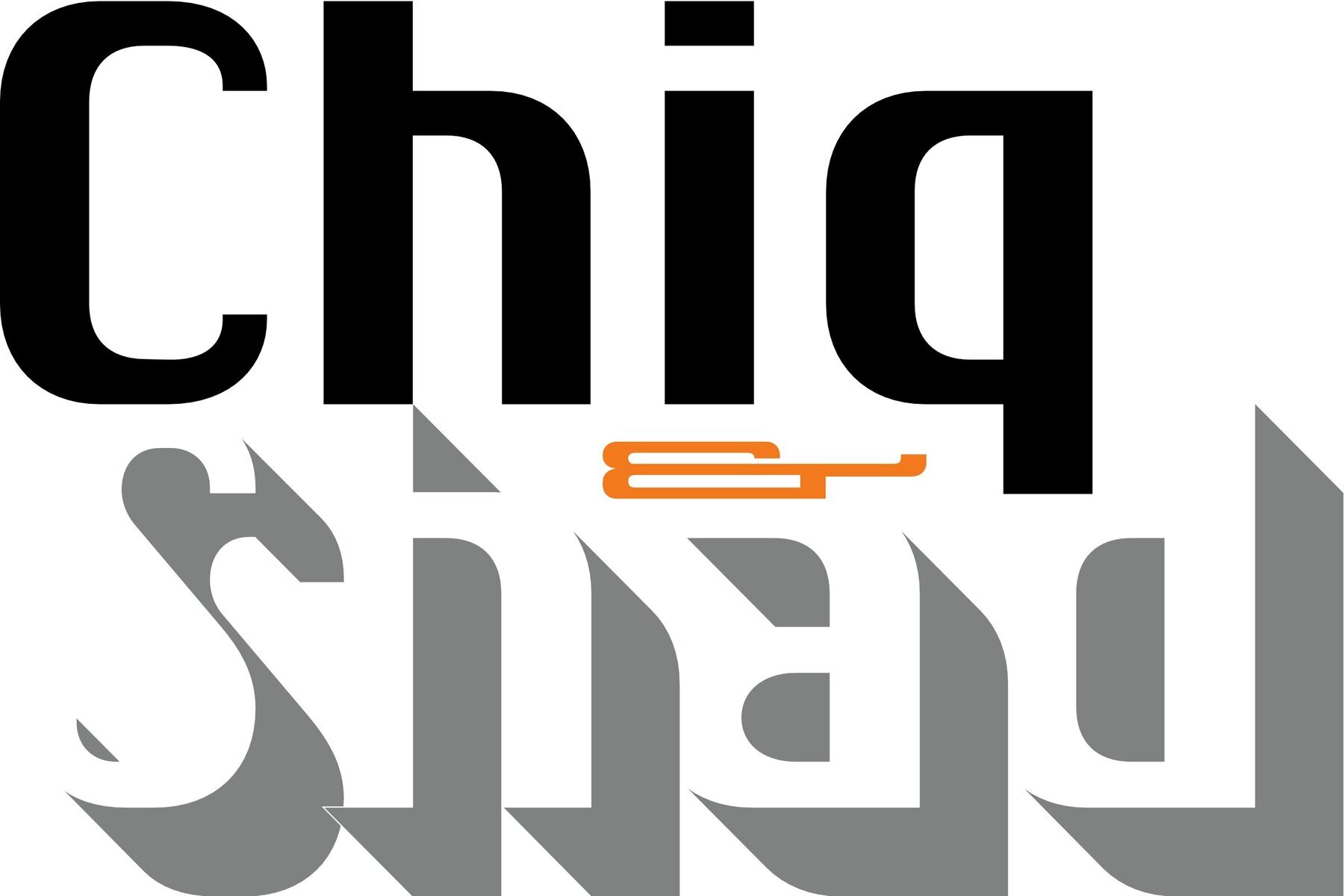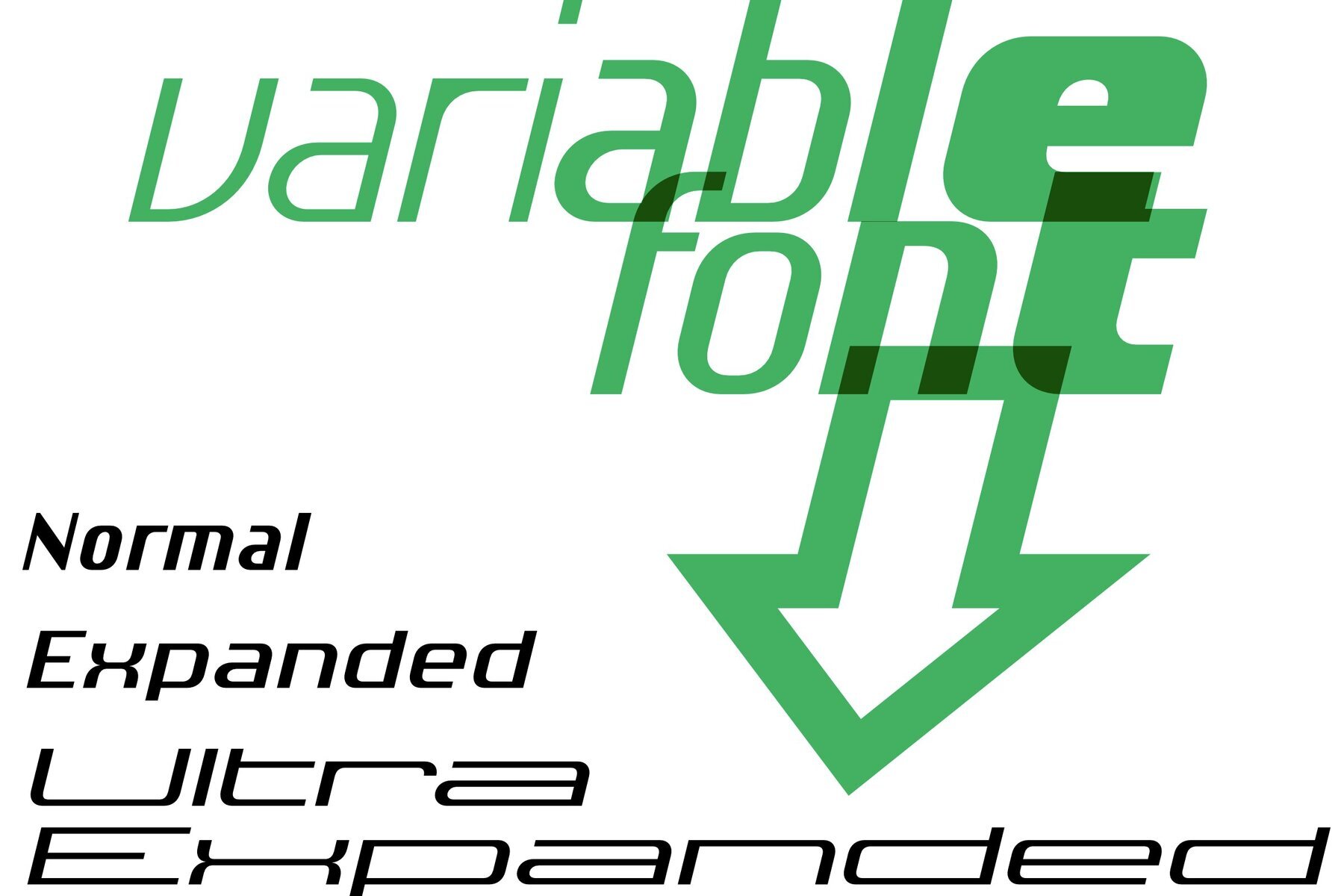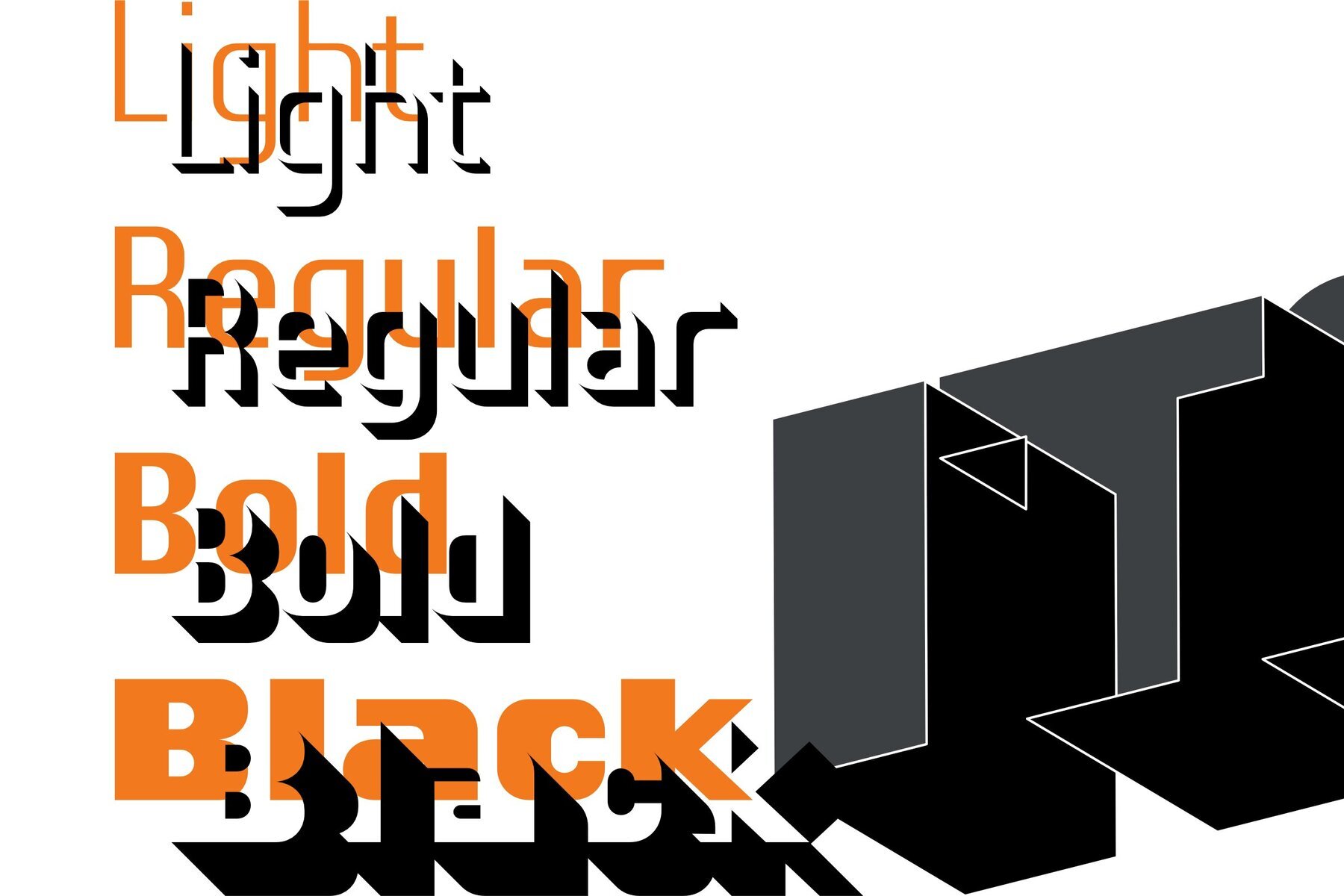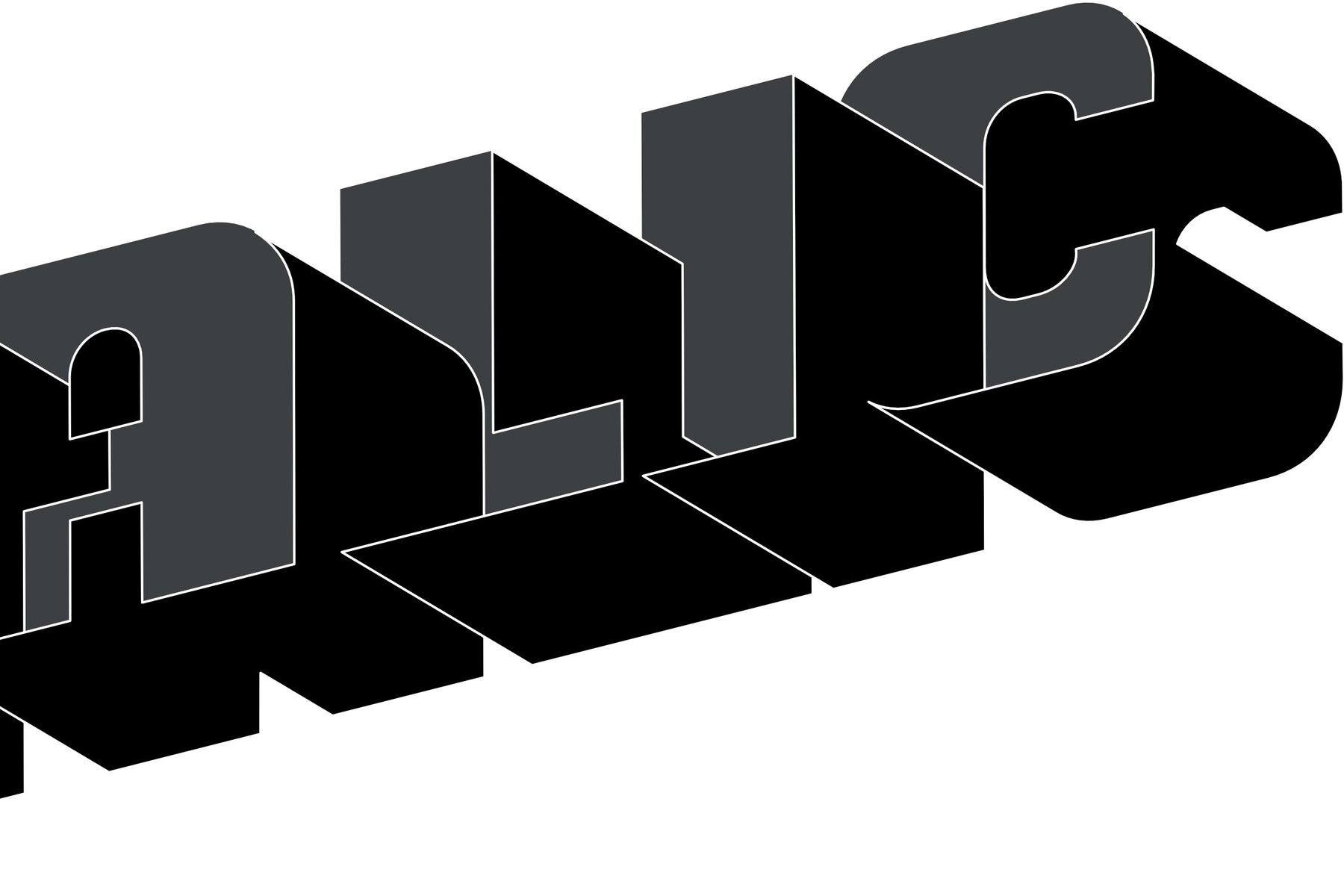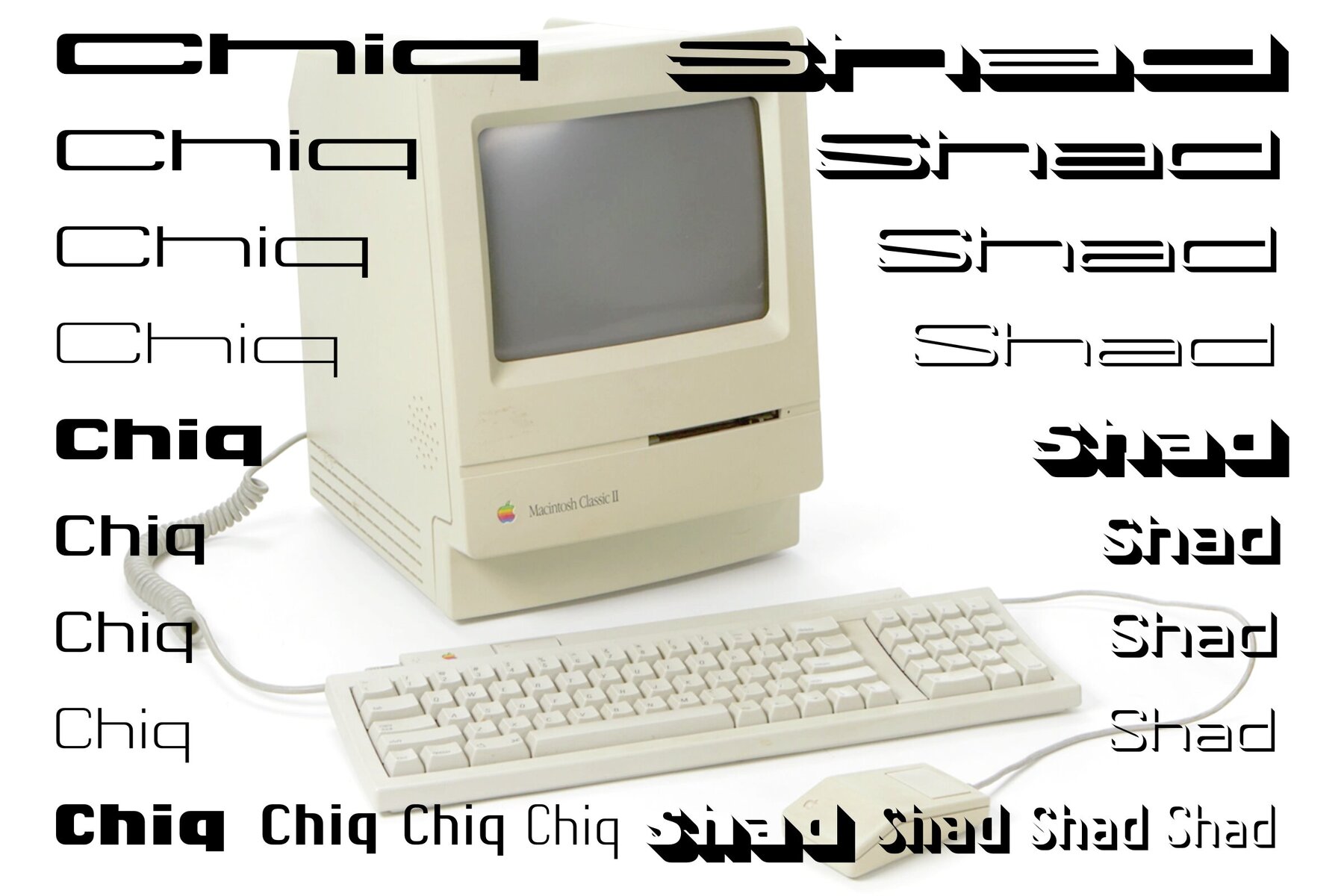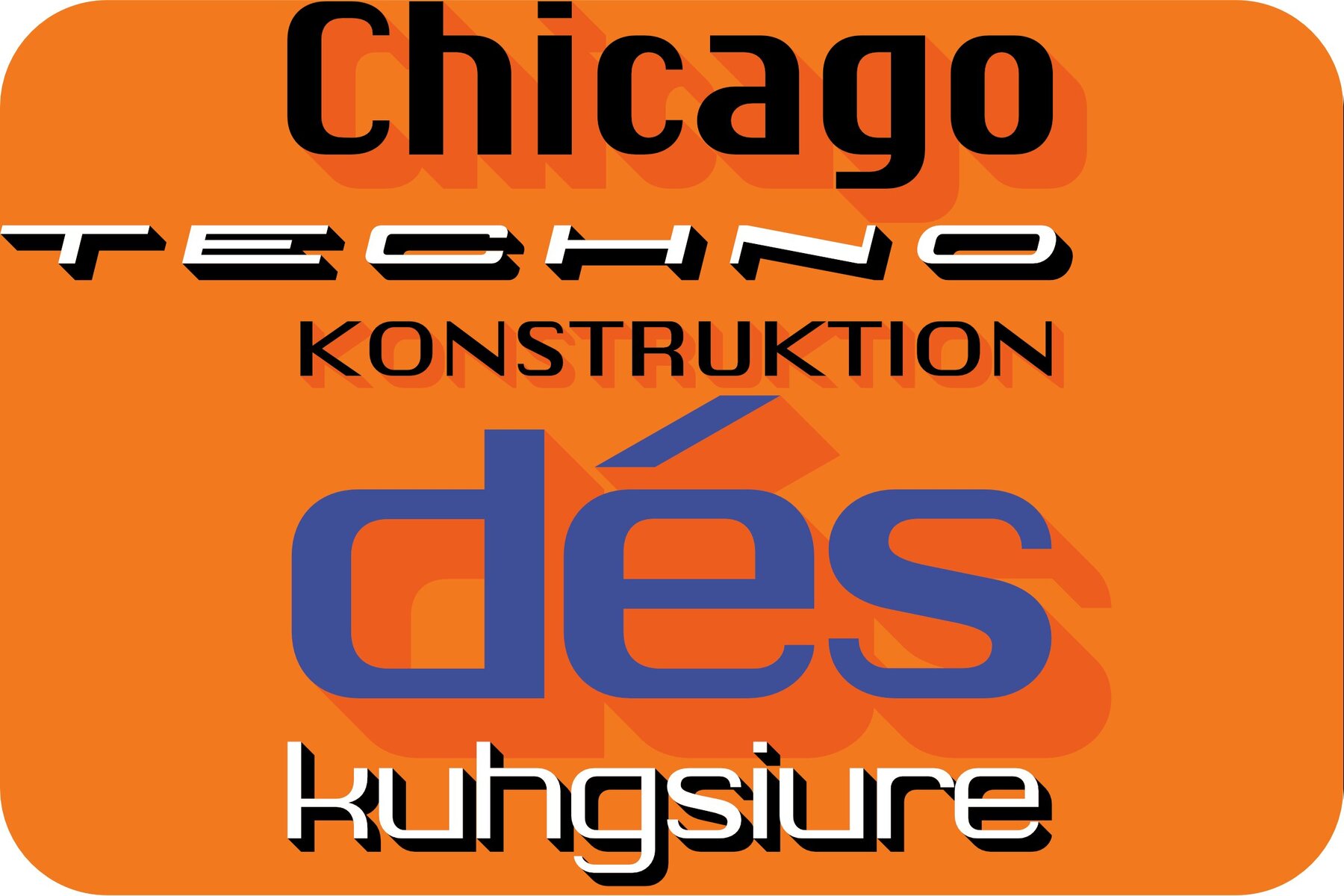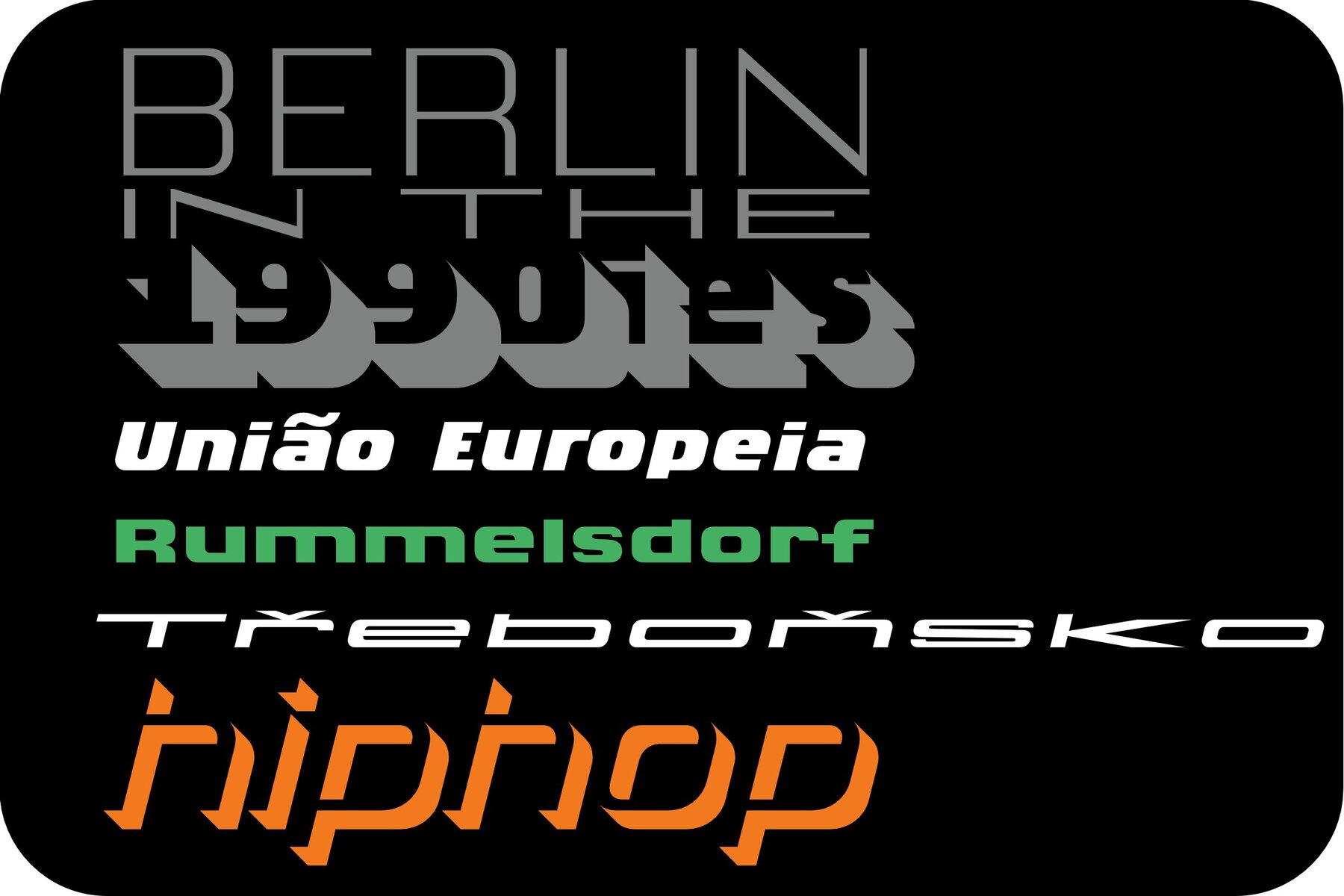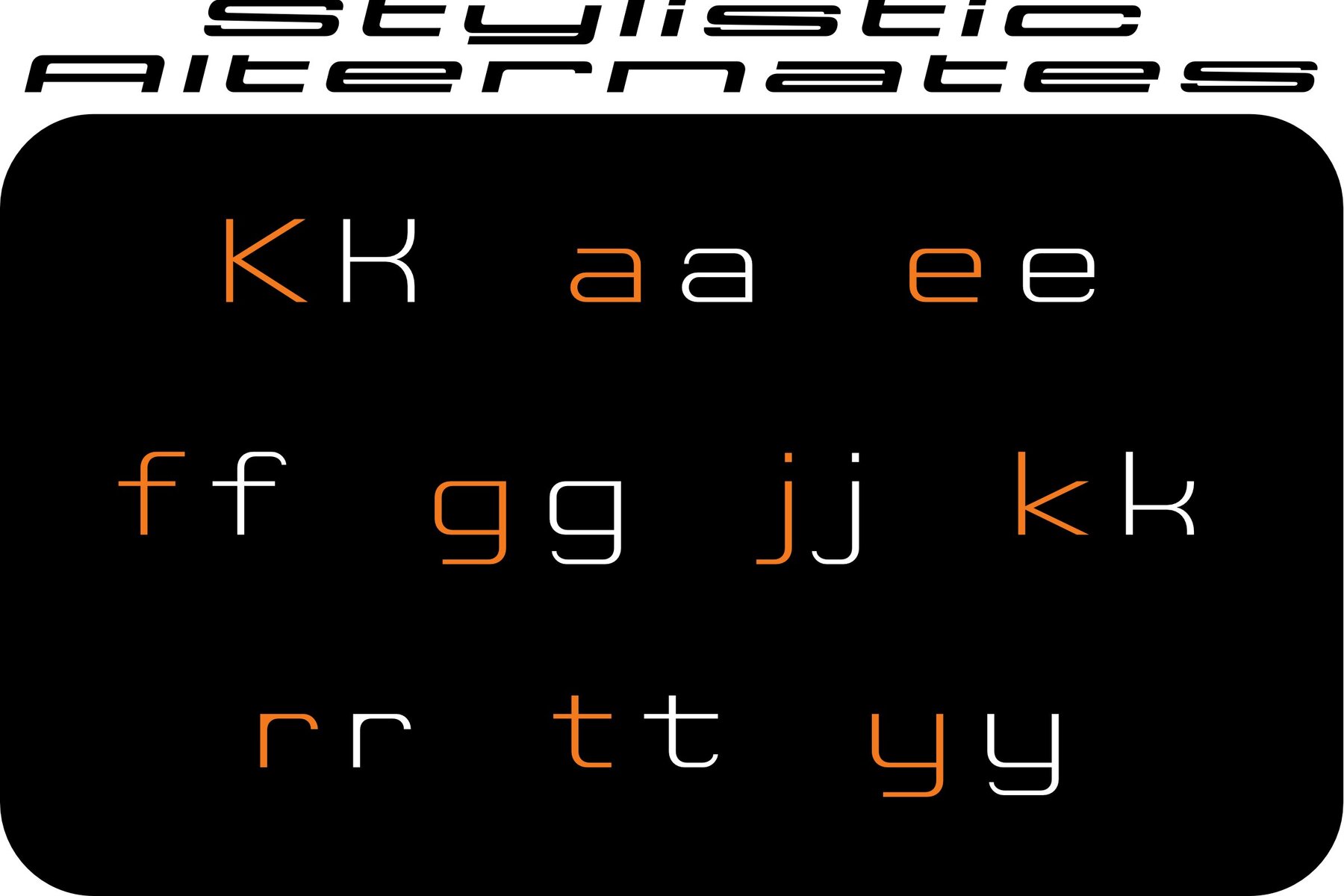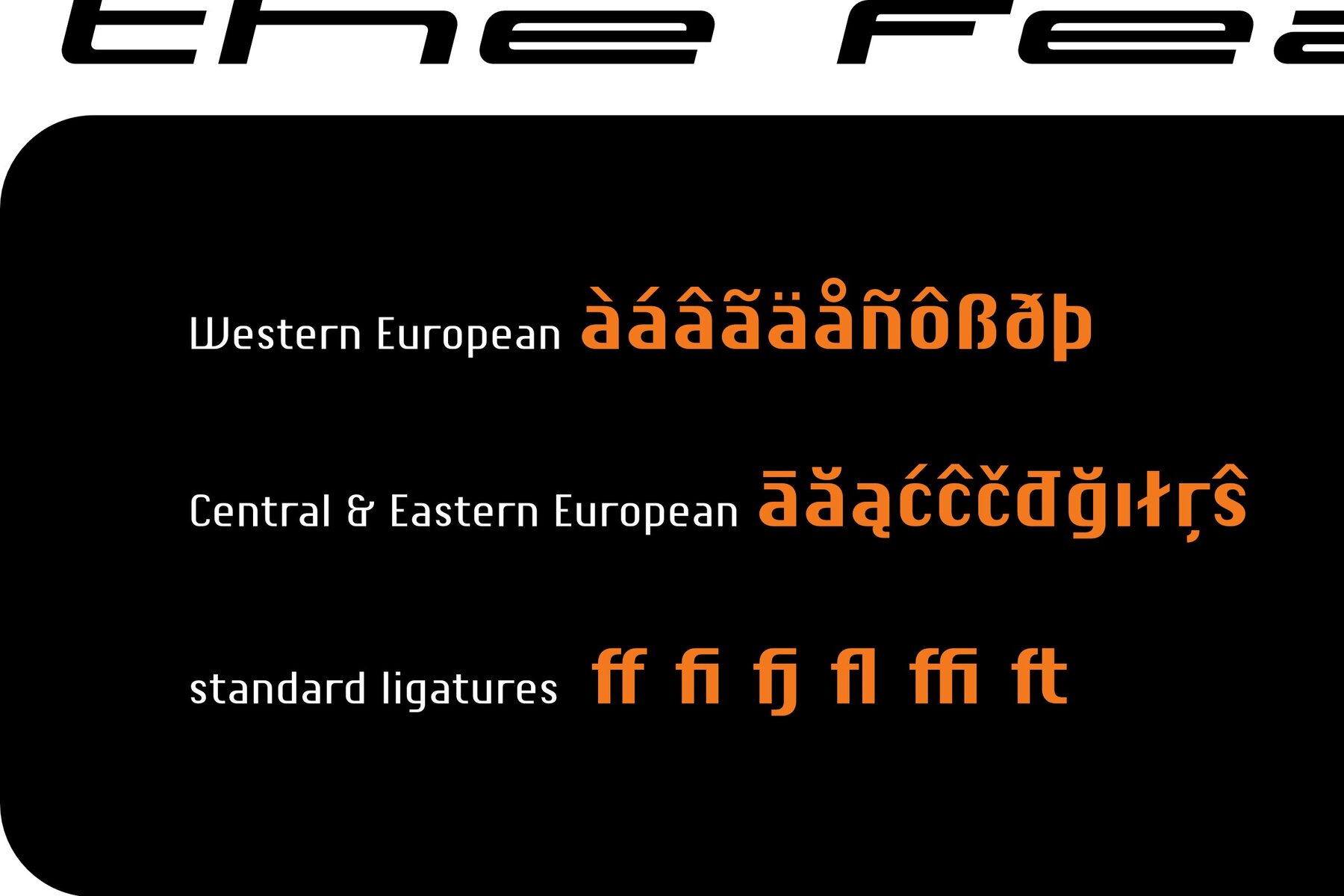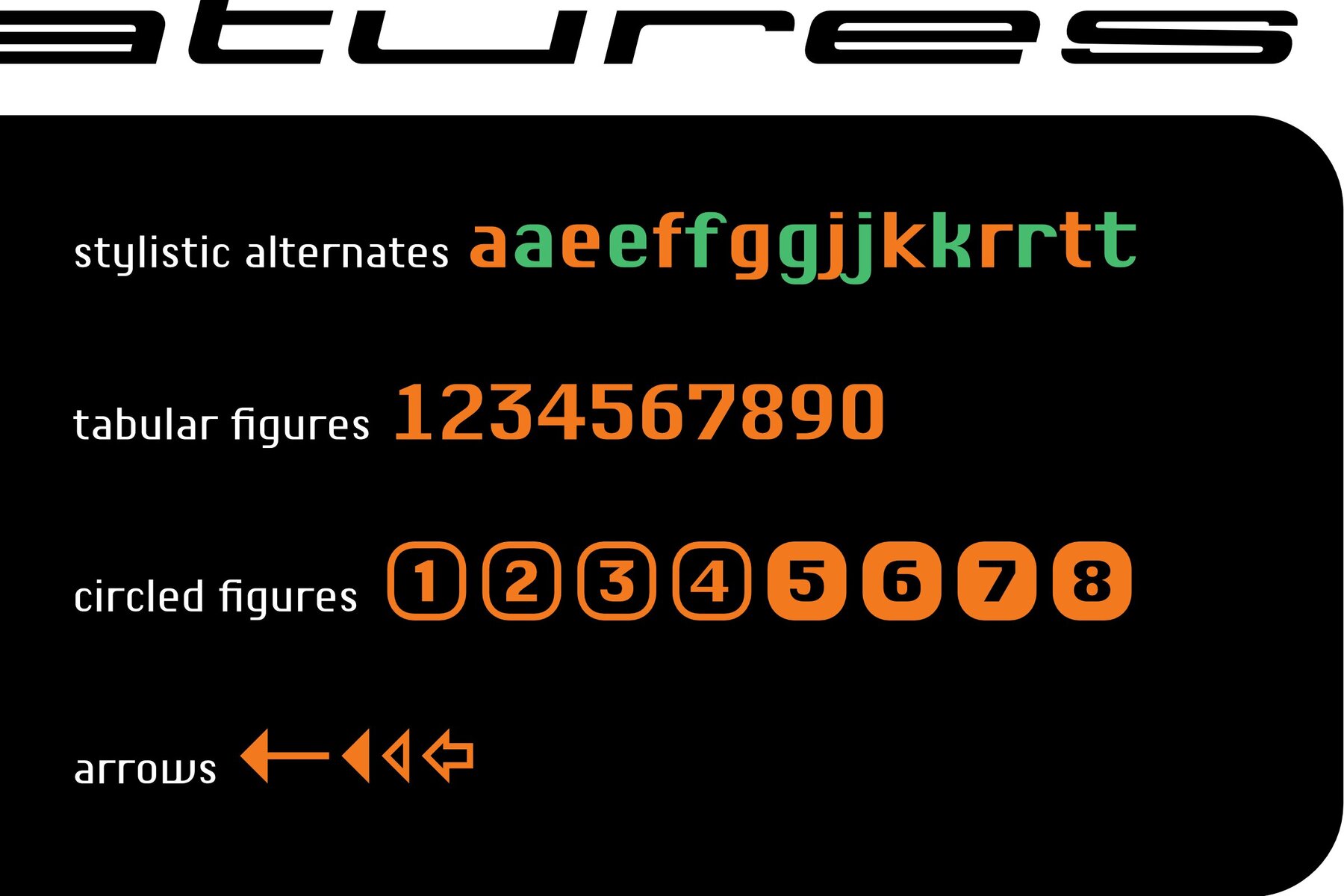
Chiq And Shad Font
Shad only consists of the letter shadows, the corresponding letter remains transparent, i.e. without filling. The “metrics”, i.e. the spacing and character widths, correspond to those of Chiq, so that both fonts can be placed congruently on top of each other.